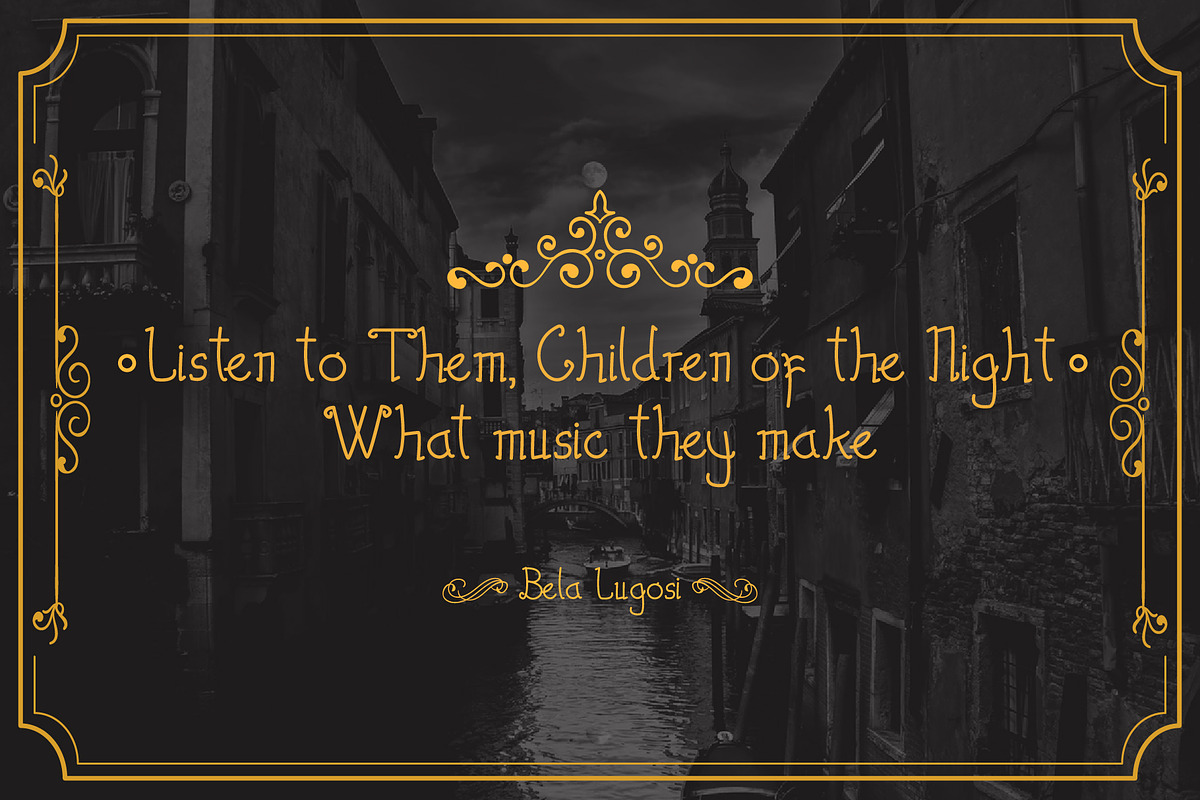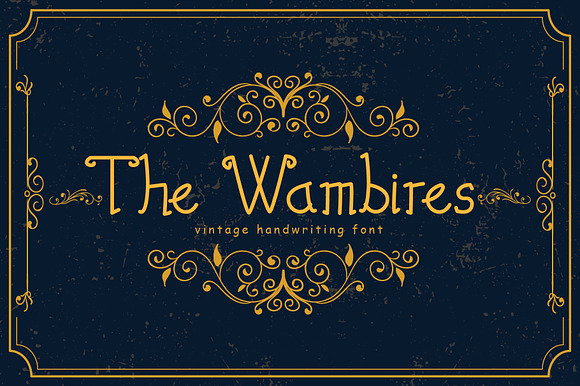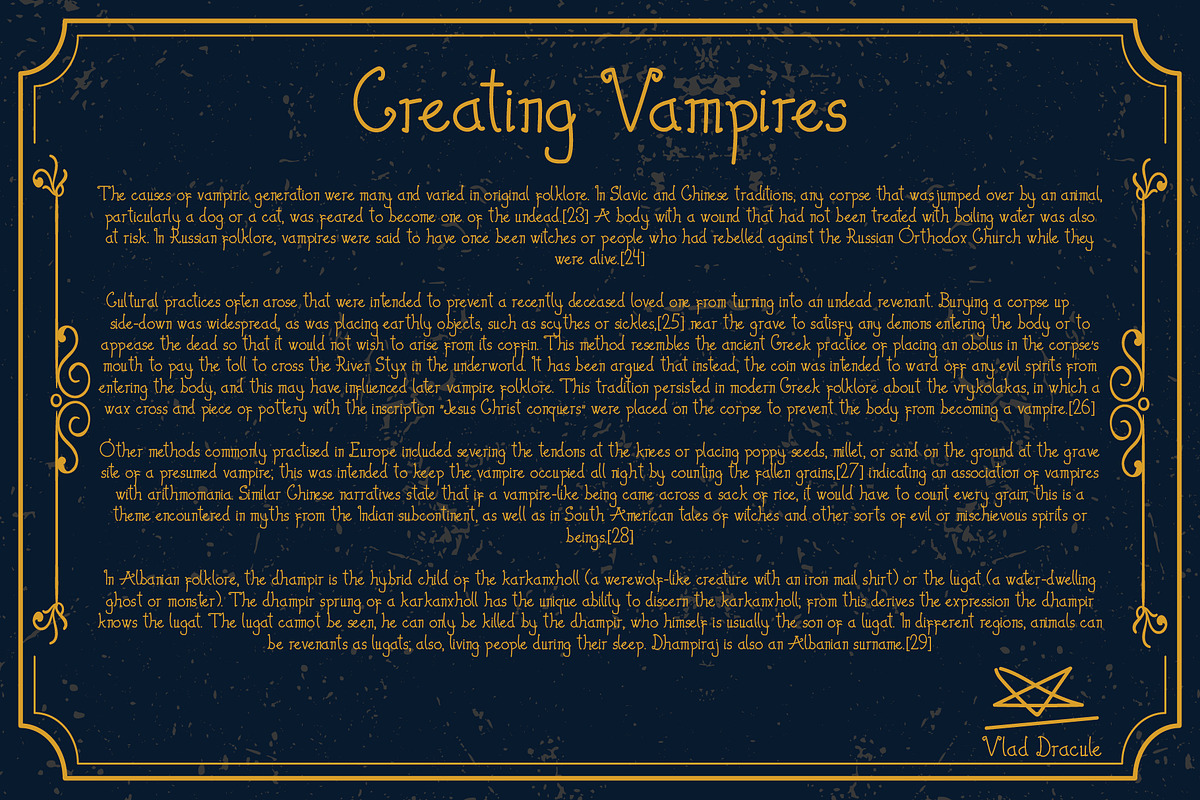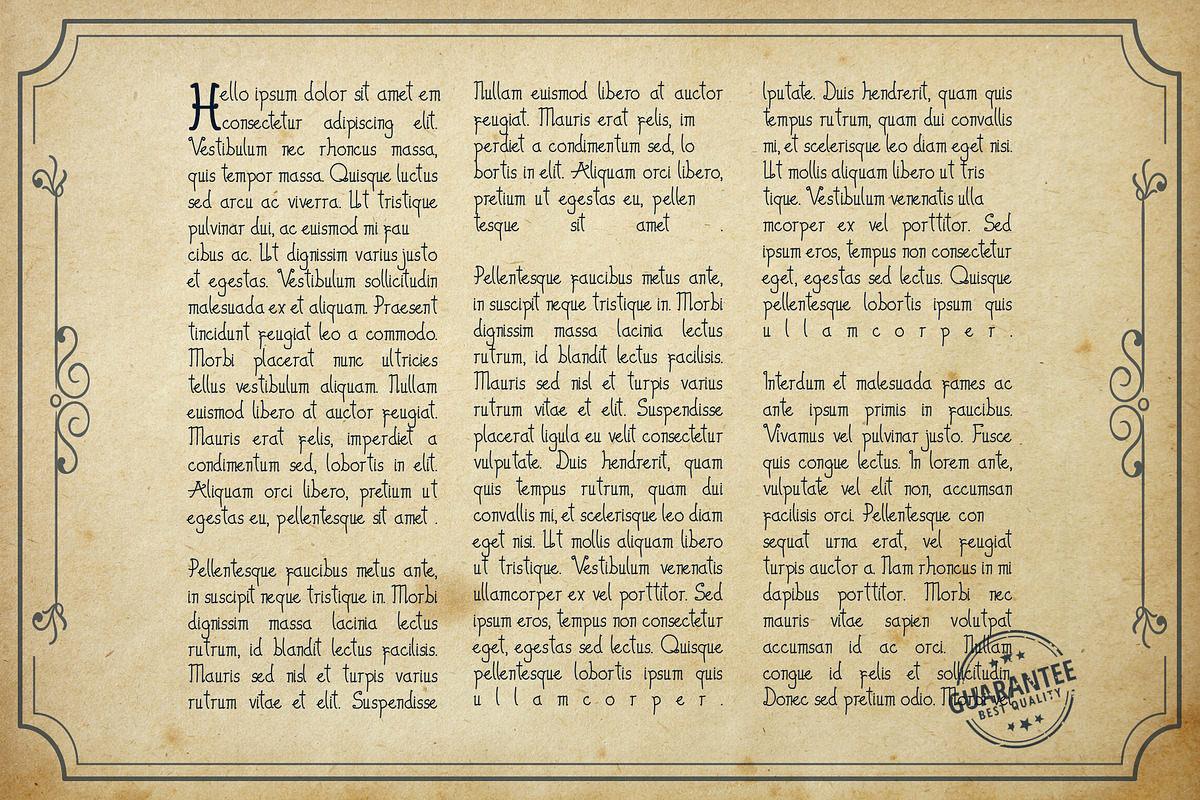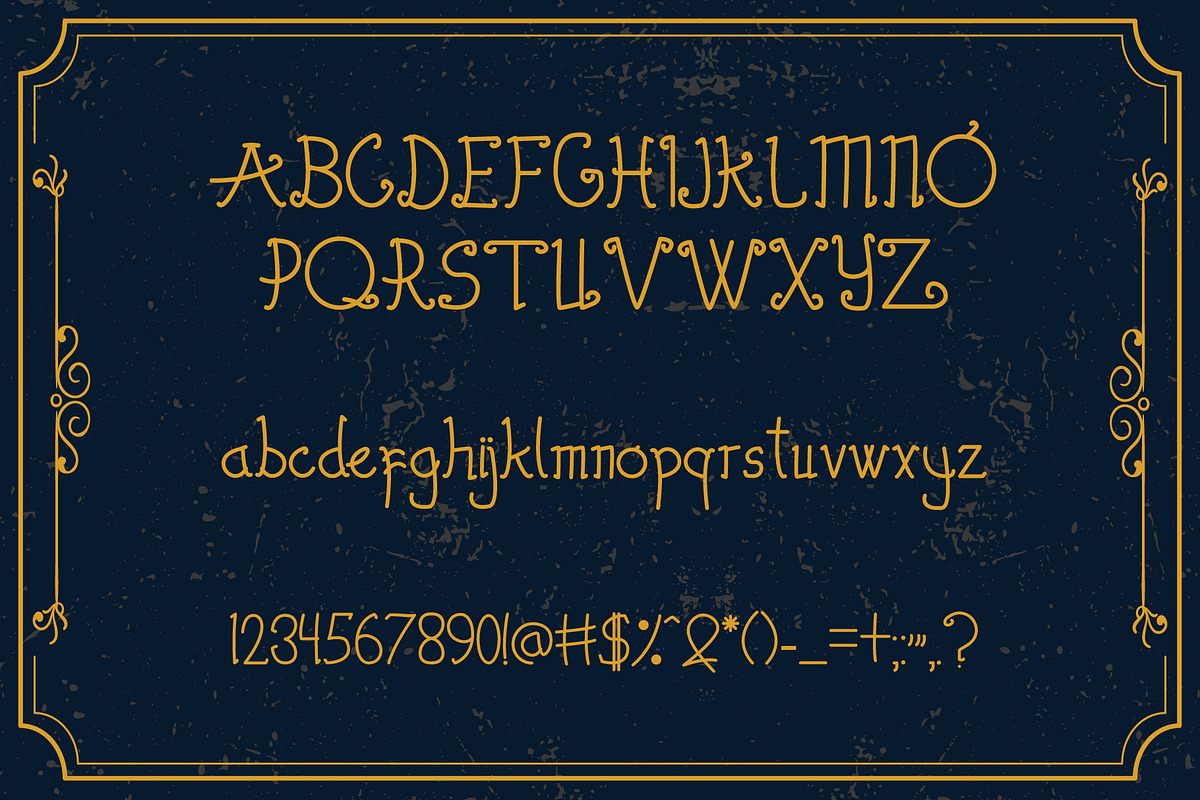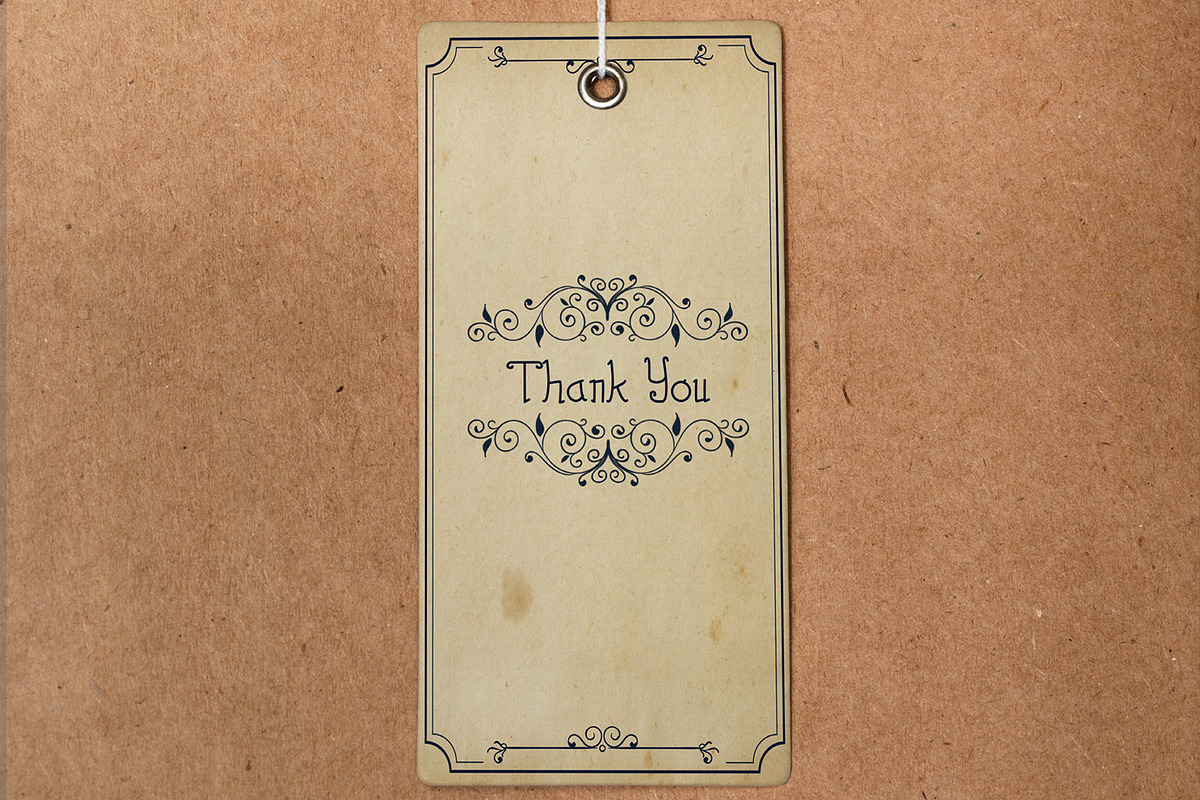
The Wambires - Vintage Body Font
The Wambires is a body font that is made with vintage hand writing style, inspired by old vintage newspaper and comic sans font.
The Wambires comes with vintage old typography feels , The Wambires vintage hand writing font will prefect for poster,photography,book,apparel design,label,logotype,letterhead and etc.